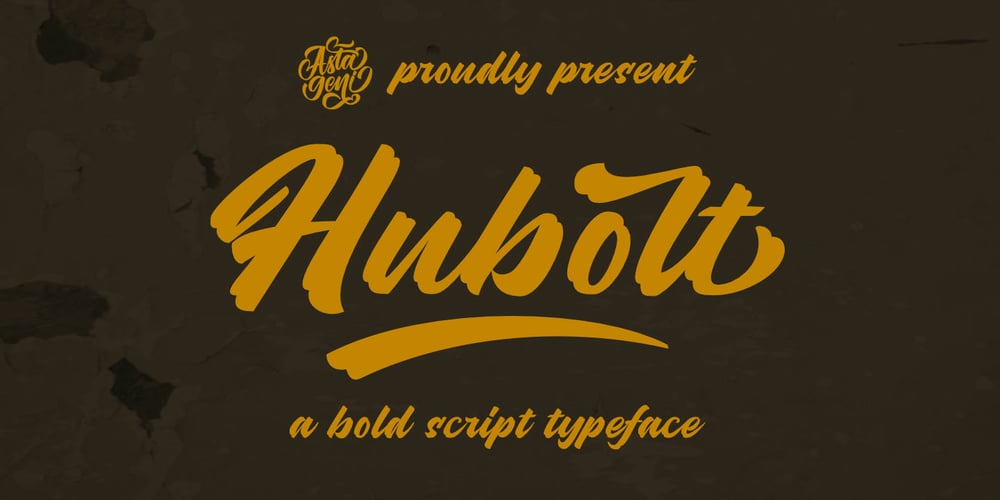
Hubolt
Hubolt font
Hubolt Font Family was designed by Nur Solikh and published by Astageni. Hubolt contains 1 styles and family package options. This Is Hubolt Script, a brush font made with a lyra aqua brush duo.It will look awesome and amazing in many ways in your latest design. Hubolt is perfect for many different projects such as logos and branding, invitations, stationery, social media posts, advertisements, product packaging, product designs, labels, photography, watermarks, special events much more.Hubolt Script contains : Character set A-Z Character set a-z Multi-lingual glyphs support It’s simple to install and accessible in Adobe Illustrator, Adobe Photoshop, Adobe InDesign, and even work on Microsoft Word.Thanks for looking, and I hope you enjoy it. Please don’t hesitate to drop me a message if you have any issues or queries.